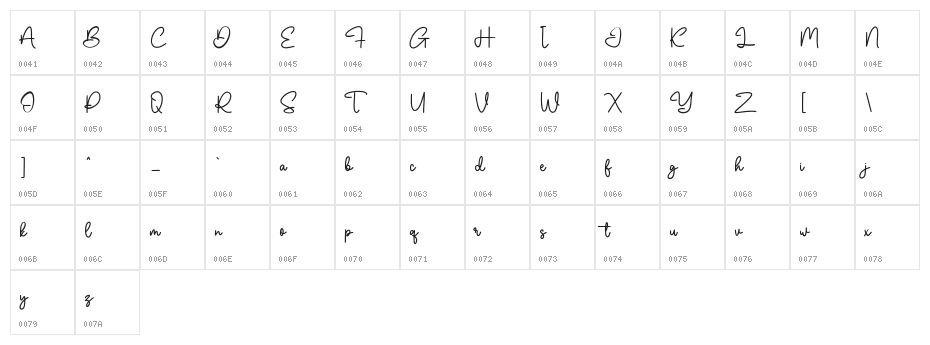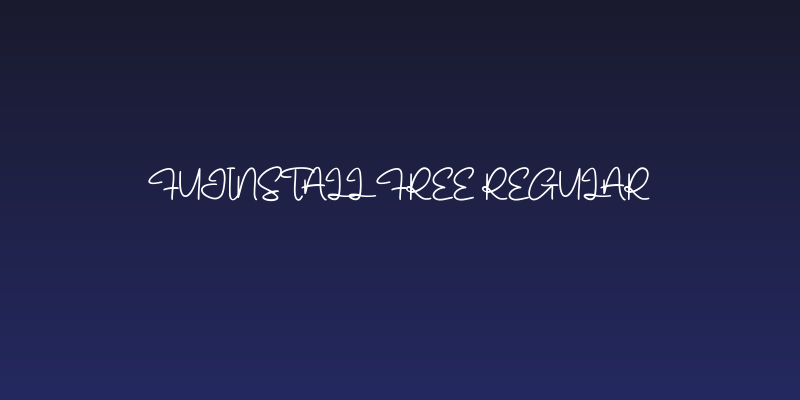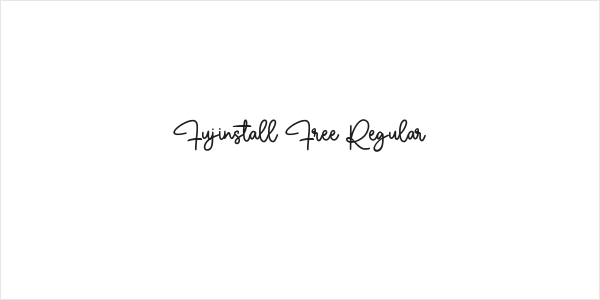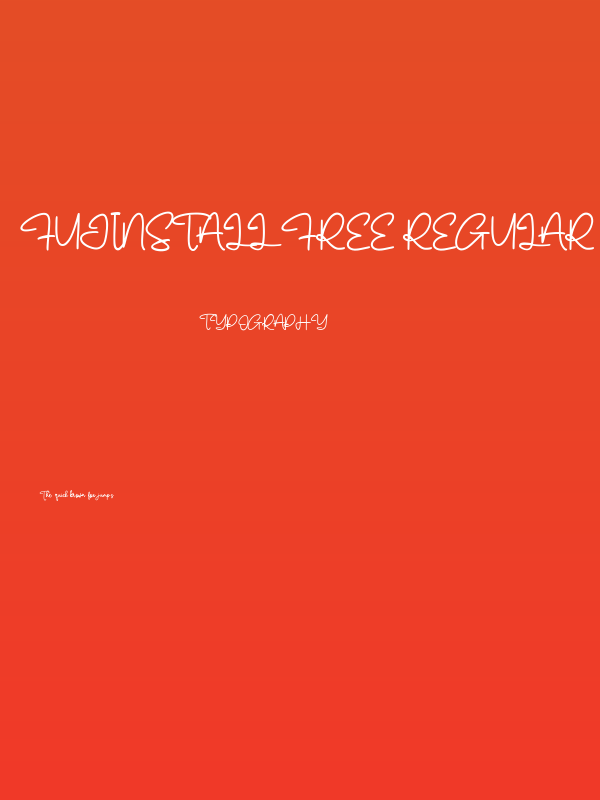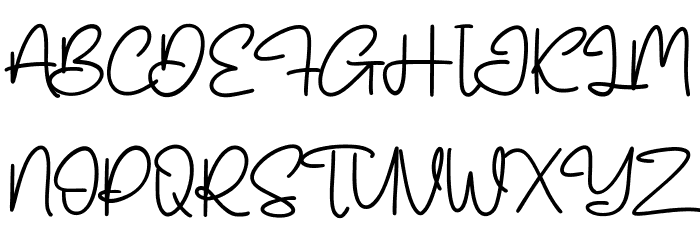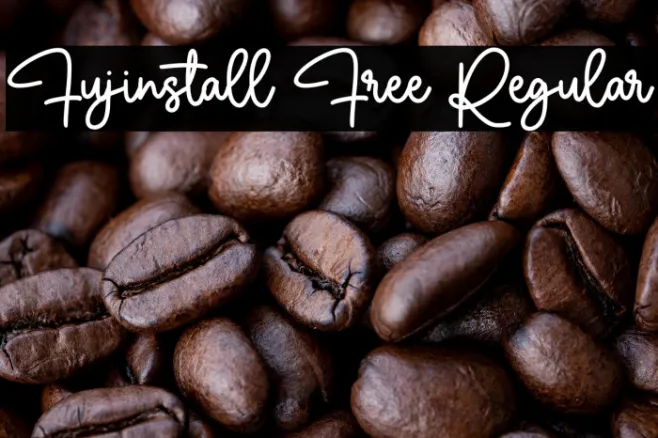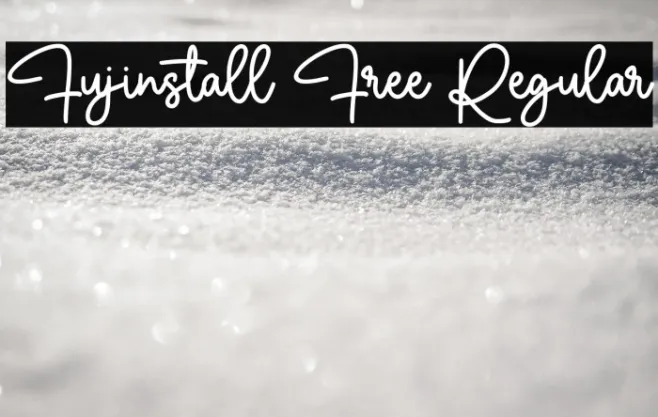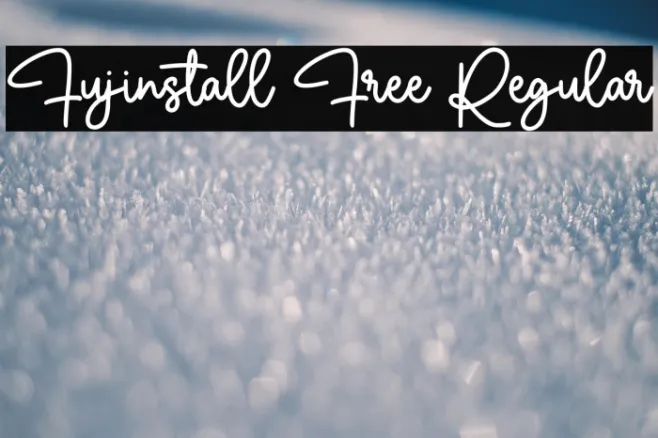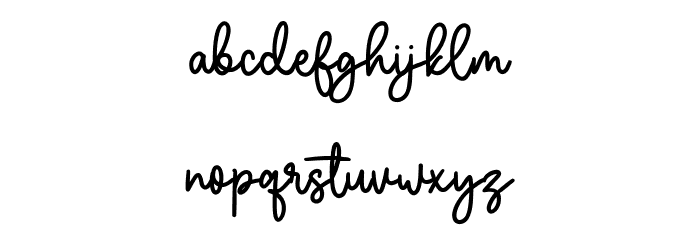
Fujinstall Free Regular Font
Fujinstall Free Regular Description
This font features a playful and casual handwritten style, characterized by its fluid and connected strokes. The uppercase letters are bold and expressive, with a slight slant that adds a dynamic feel. The lowercase letters maintain a consistent flow, enhancing readability while preserving the whimsical nature. The font's design is versatile, suitable for both formal and informal contexts, making it ideal for creative projects. Its unique charm lies in the balance between elegance and approachability, achieved through smooth curves and consistent line thickness.